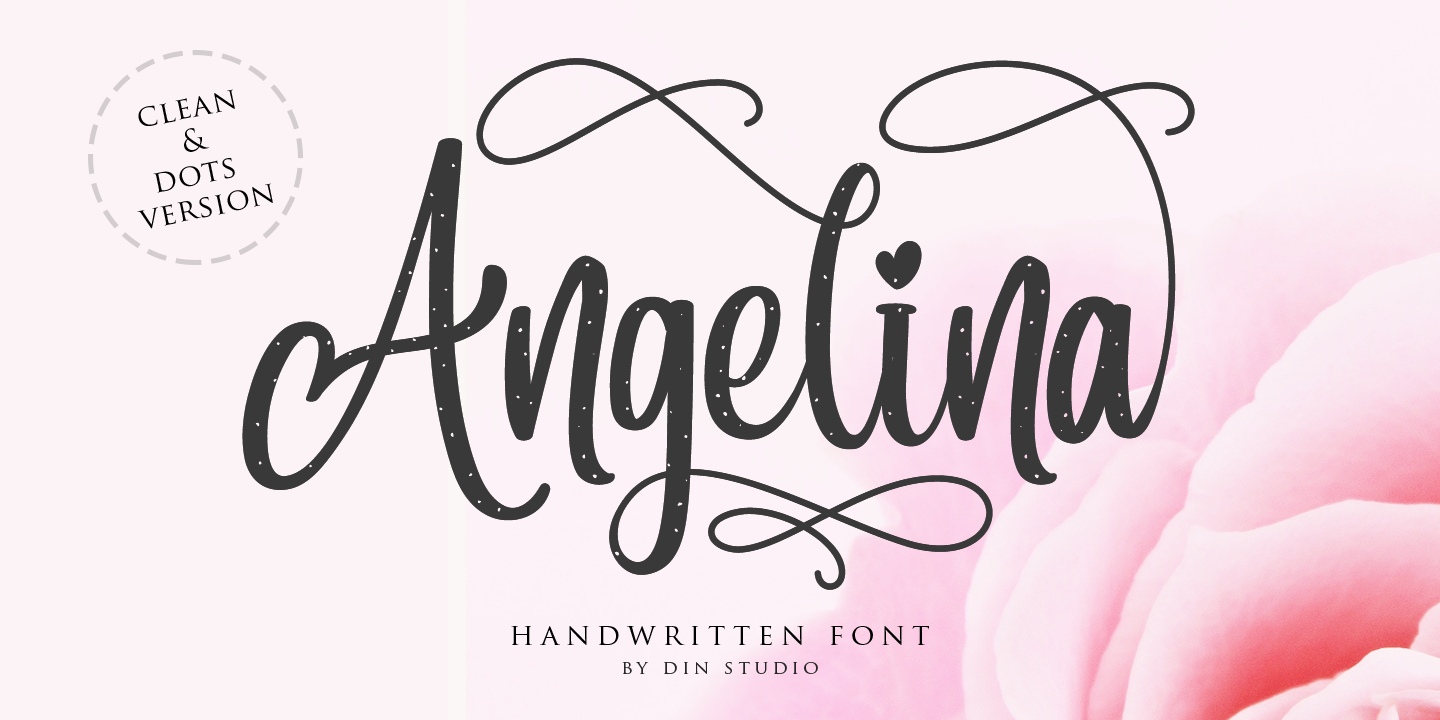
Angelina Script Font
Angelina Script Font excels in elegant wedding invitations, luxury bridal boutique branding, romantic restaurant menus, feminine beauty salon signage, sophisticated jewelry packaging, heavenly spa treatment materials, angelic children's clothing labels, graceful dance studio logos, divine gift wrapping designs, and celestial celebration stationery. This ethereal typeface brings angelic grace and divine elegance to any feminine-focused design project.
Angelina Script Font is exciting because it embodies the pure grace and heavenly beauty associated with angelic femininity, featuring flowing script letterforms that seem to float with divine elegance and capture the ethereal beauty of celestial grace. Its angelic character instantly conveys purity, sophistication, and the timeless feminine elegance that feels truly blessed and divinely inspired.
Angelina Script Font family includes Light, Regular, and Bold weights with heavenly alternates, angelic swashes, celestial flourishes, and divine ornamental elements that enhance the ethereal aesthetic, providing elegant designers with graceful tools for creating typography that celebrates feminine beauty and divine sophistication with angelic charm.
Feminine luxury designers love Angelina Script Font for its exceptional ability to convey angelic grace and divine beauty through delicately crafted letterforms. The font's heavenly character and celestial details create immediate associations with bridal purity, feminine sophistication, and the angelic qualities that make women feel beautiful, blessed, and divinely feminine in their most special moments.
The design inspiration behind Angelina Script Font draws from classical calligraphy, angelic imagery, and the timeless tradition of celebrating feminine grace and divine beauty, making it particularly effective for bridal services, luxury beauty brands, and sophisticated women's businesses seeking to establish connections with heavenly elegance and angelic femininity. Wedding teams working on celestial themes find this font essential.
Whether used for luxury wedding services, high-end beauty brands, or sophisticated feminine products, Angelina Script Font delivers the perfect combination of angelic grace and divine sophistication. Its heavenly appeal and feminine elegance make it an indispensable choice for brands that celebrate the divine beauty of femininity, angelic grace, and the celestial elegance that makes every woman feel truly blessed.